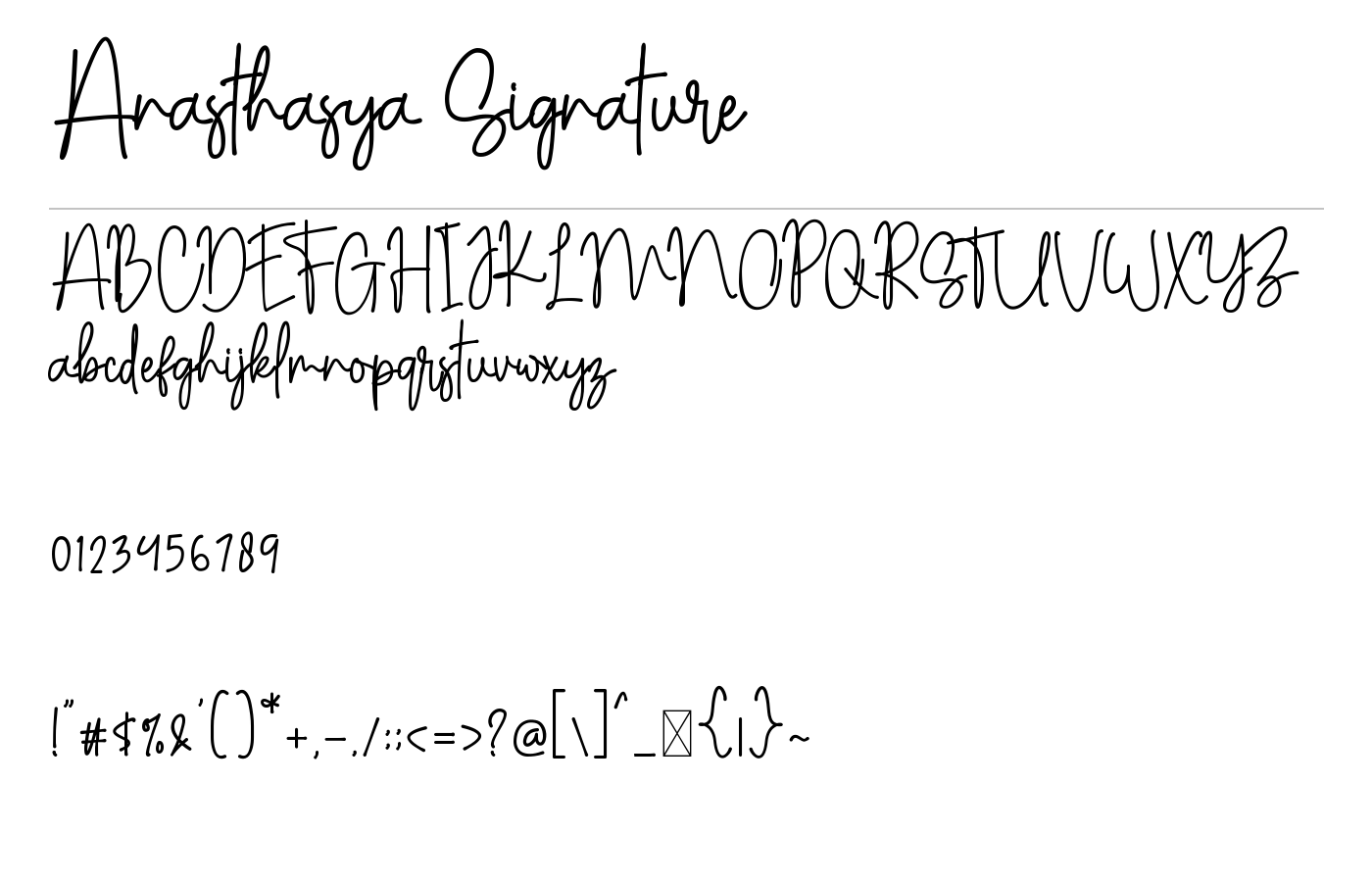
Anasthasya Signature Font is a delicate, handwritten script with a light and airy feel, featuring tall, slender letterforms that evoke the elegance of a personal signature. Its playful yet refined strokes make it perfect for creative branding, invitations, and stylish headlines where a touch of individuality and sophistication is desired. This font works beautifully in designs that aim to convey warmth, authenticity, and a modern, artistic charm.
Anasthasya Signature Font